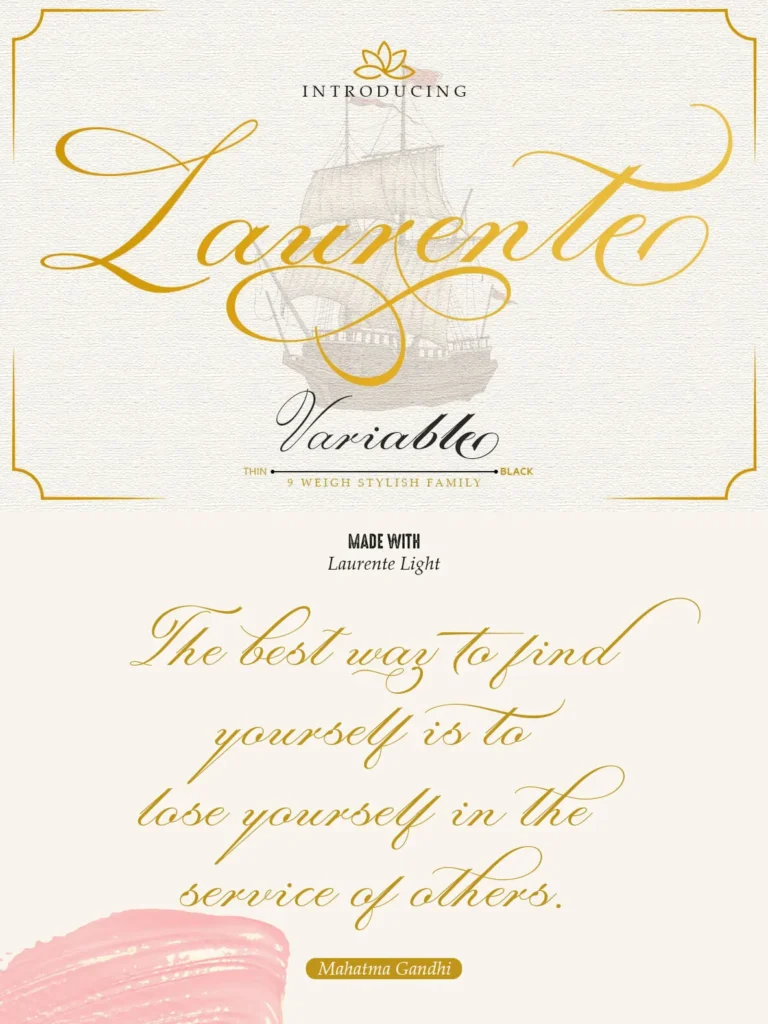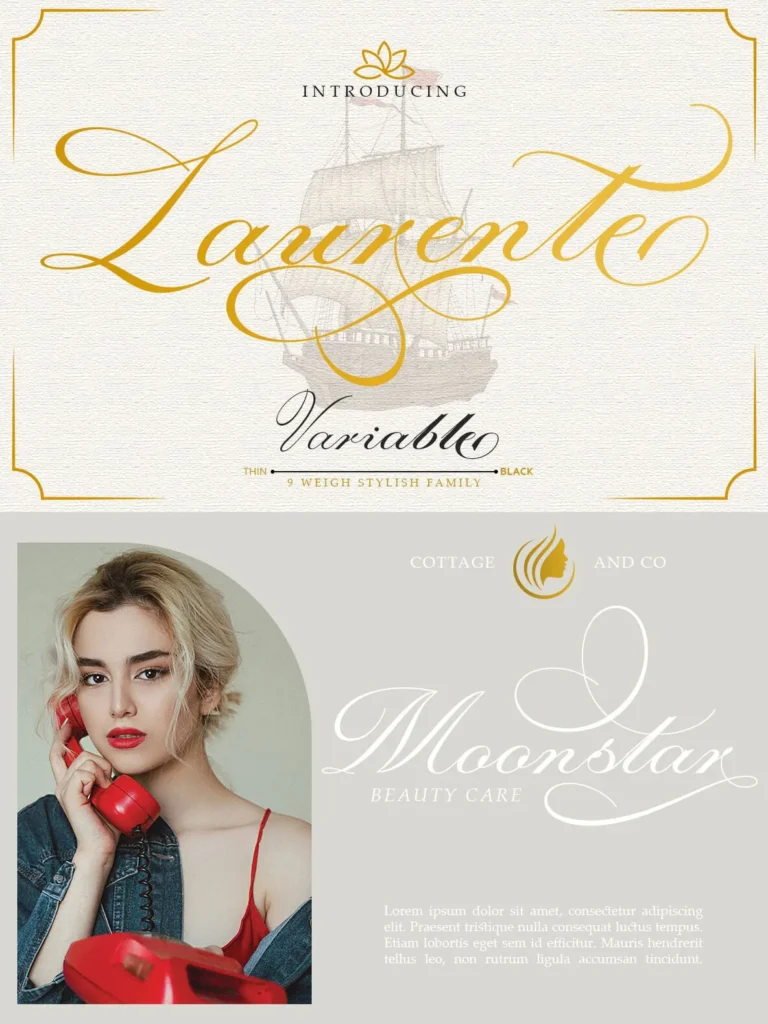
Laurente: Polished modern letterforms
Designed by Slex Studio, Laurente Font Family presents a modern, elegant style with balanced proportions and subtle details. Its clear structure and neat finish support professional typography across brand and editorial work.
Use it for logo design and titles, then rely on the same family for smaller text when you need clarity and consistency. Laurente stays attractive and versatile across a range of design purposes. With multiple styles and letter weights available, it also gives designers room to test combinations, refine hierarchy, and build unique, interesting looks that still feel cohesive.